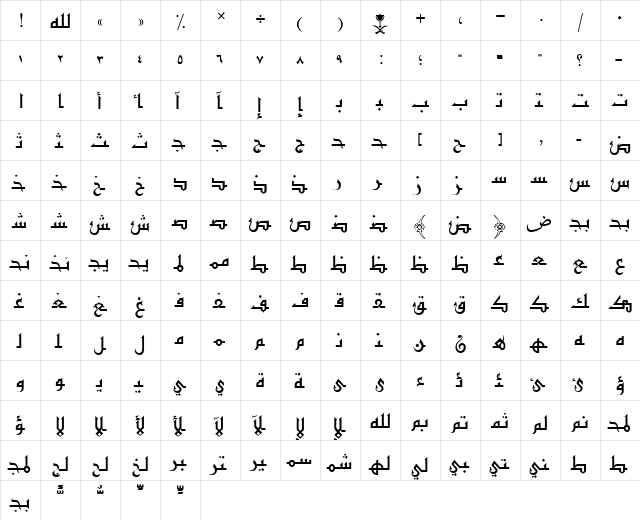
AYM Shurooq 03 Normal
Design Context for AYM Shurooq 03 Typeface
AYM Shurooq 03 offers clean, dependable letterforms without strong stylistic allegiance, making it a practical choice for designers who need flexibility.